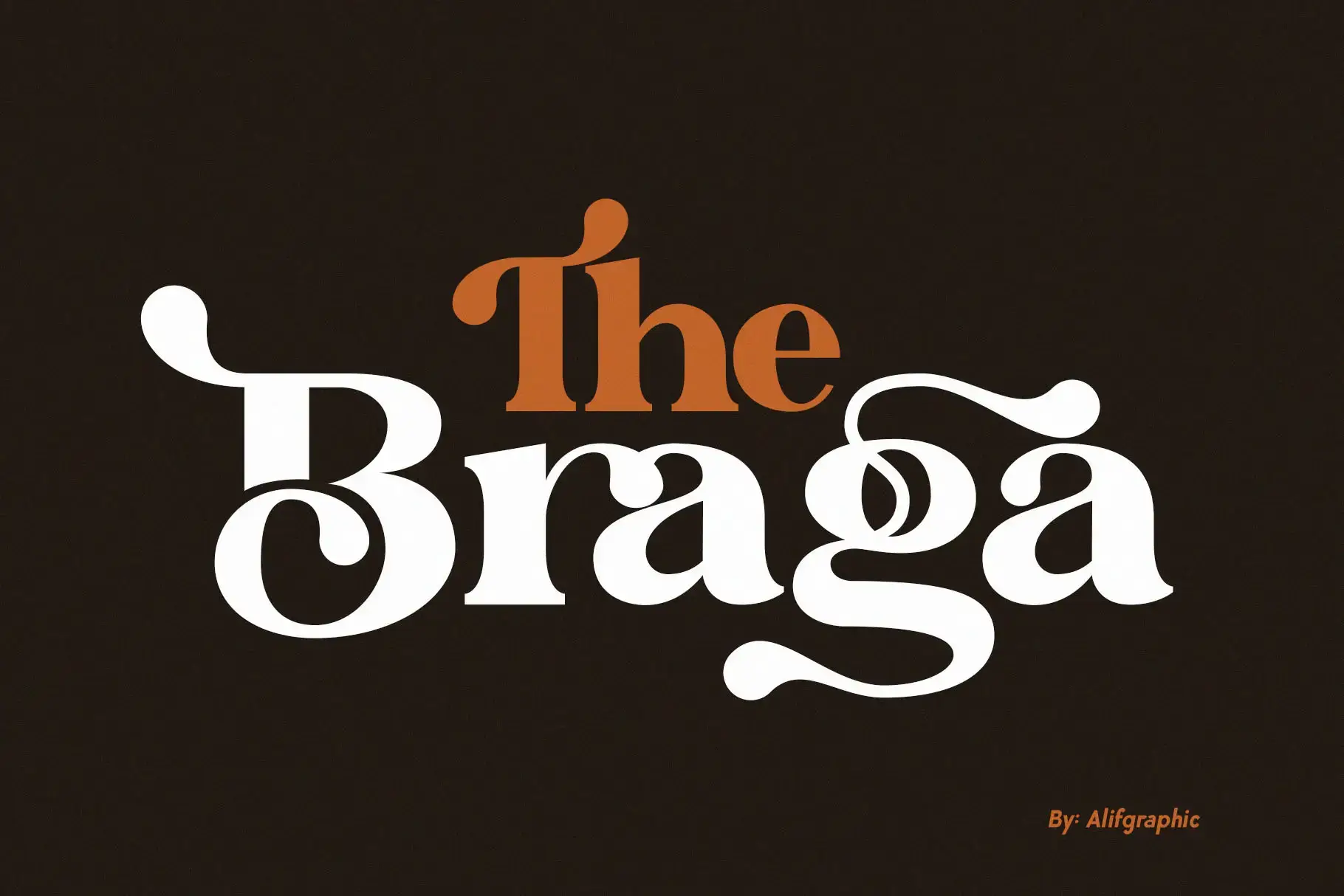
The Braga Modern Serif
The Braga
Introducing The Braga: A Modern Serif Font
Introducing The Braga, a modern serif font that exudes elegance and sophistication. With meticulously crafted, neat lettering, The Braga strikes the perfect balance between contemporary style and timeless appeal. This versatile font is designed to elevate your design projects, whether you’re working on beauty and fashion branding, invitation card designs, or social media graphics.
Thanks to its PUA encoding, The Braga allows easy access to all of its glyphs and swashes, offering the flexibility to express your creativity effortlessly. Whether you’re designing for print or digital, The Braga ensures your typography is always stylish, refined, and visually striking.
• Modern Designs
• Beauty and Fashion
• Invitation Card Designs
• Social Media Designs
• Advertising Campaigns
• Ready for Creative Expression
• Immaculately Crafted Letters
The Braga is a modern serif font that combines contemporary elegance with timeless appeal. Ideal for beauty, fashion, and advertising, it elevates any creative project.